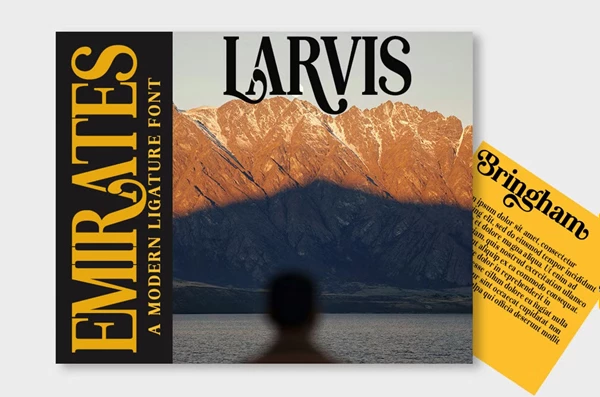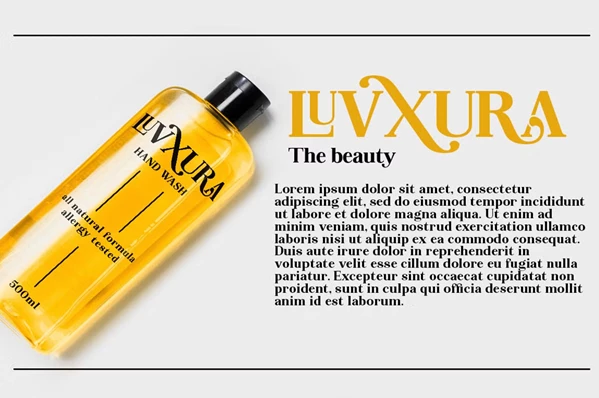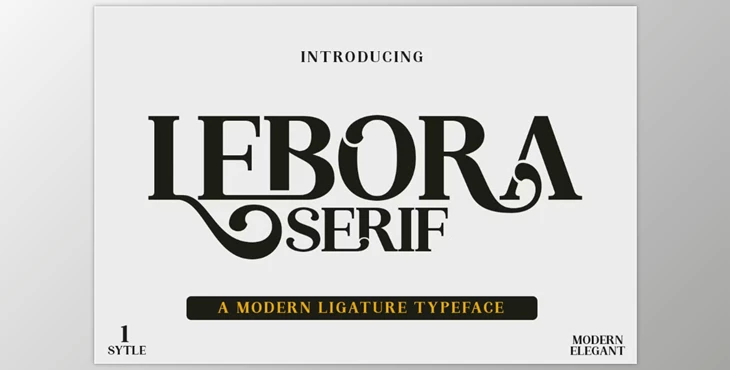
Lebora Font:
Lebora is a modern typeface that uses serifs. It is characterized by the unique contrast of its elegant binding style. Primarily crafted to boost the creativity of visual designs, it excels in feminine and fashion projects. Its delicate structure works best for branding, logos, editorial, and other printed materials. PUA encoding, alongside the support of multiple languages, helps designers around the globe by making it easy for them to access and use the font.
Some great features of Lebora Font:
- Full Uppercase & Lowercase Alphabet: Provides diverse typography options with versatile design styles.
- Automatic Ligatures: Improve design and text flow with smooth insertion of letter pairs.
- Multilingual Support: Access global markets thanks to compatibility with several languages.
- Numbers & Punctuation: Provides all essential symbols and numerals necessary for most projects.
"Lebora Font" Samples: